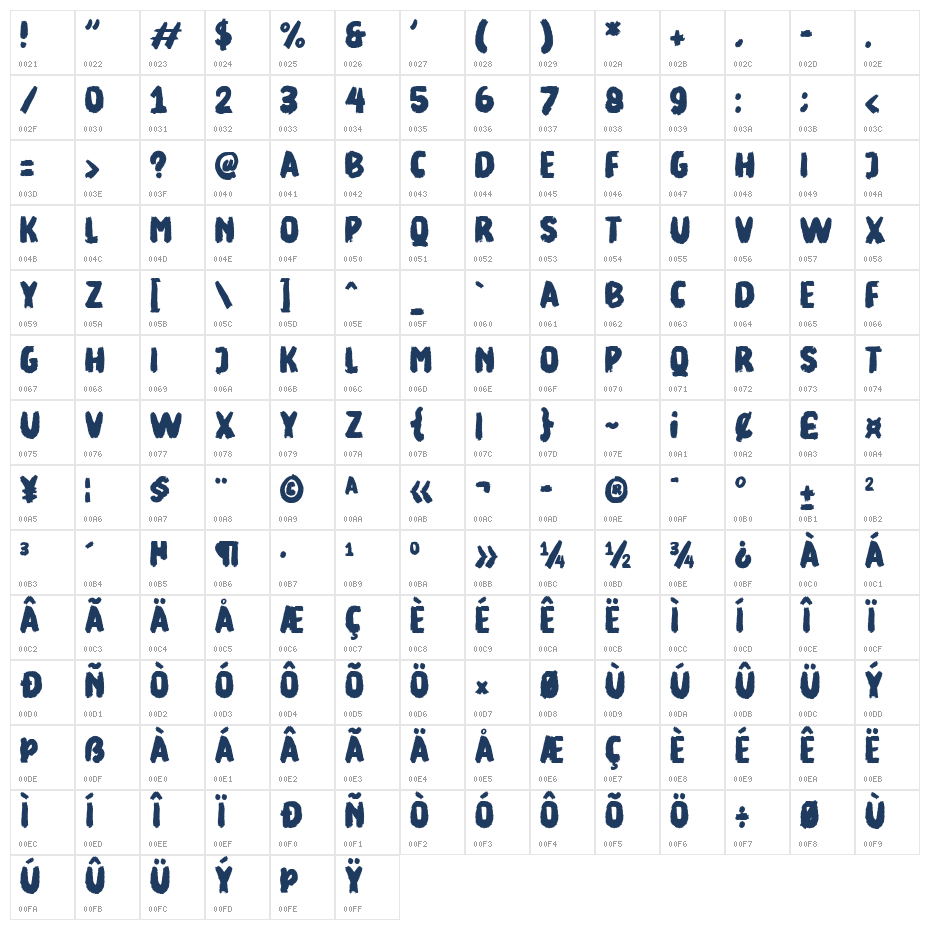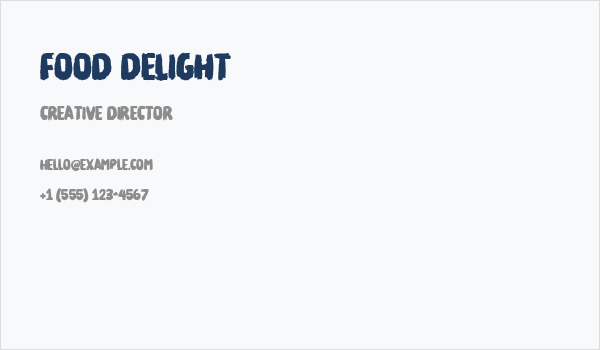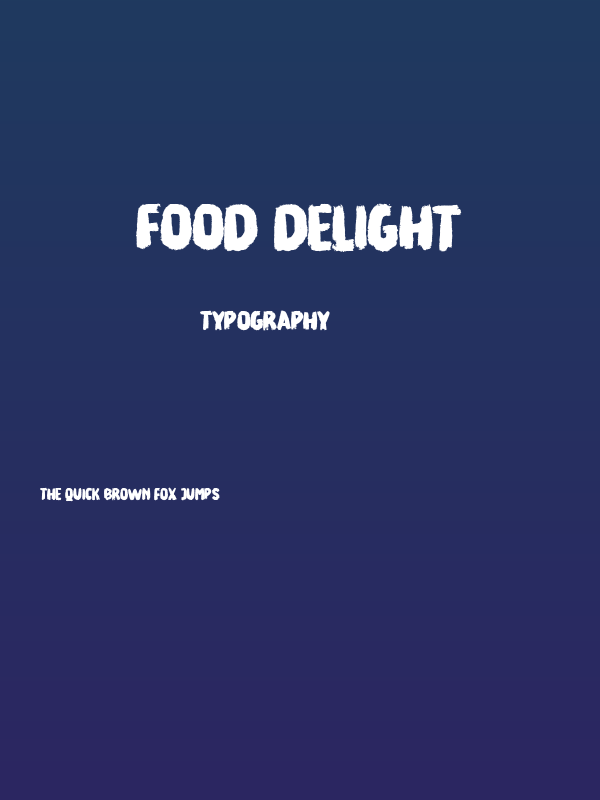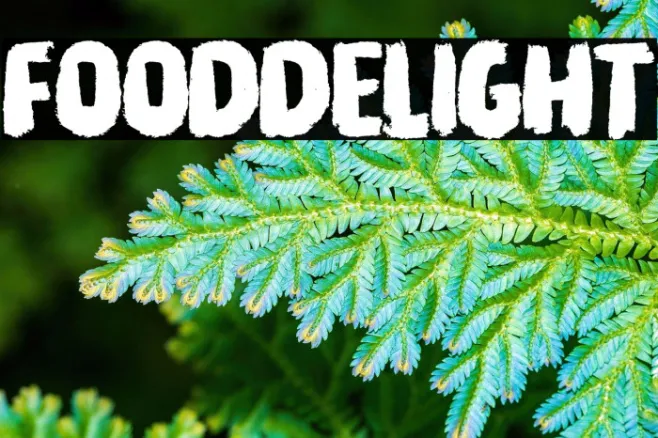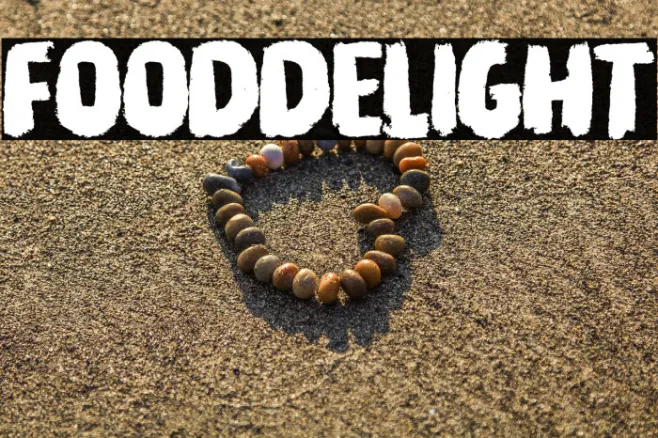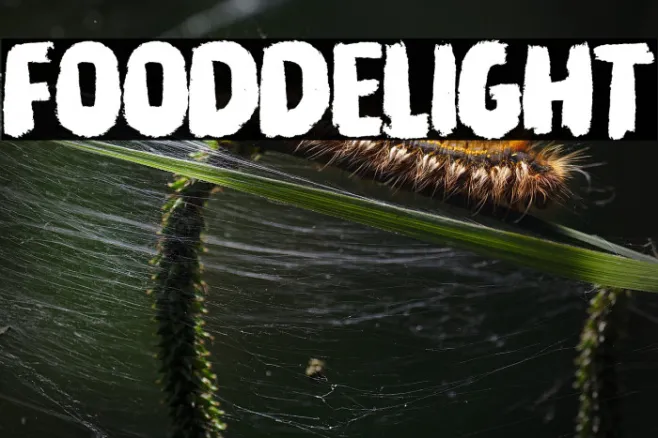
Food Delight Font
Food Delight Description
A bold, textured, brush-stroke style font with irregular edges and a casual, hand-painted appearance.
| Overall Style | Casual, Artistic, Hand-painted |
| Use Case | Headlines, Posters, Logos, Creative branding |